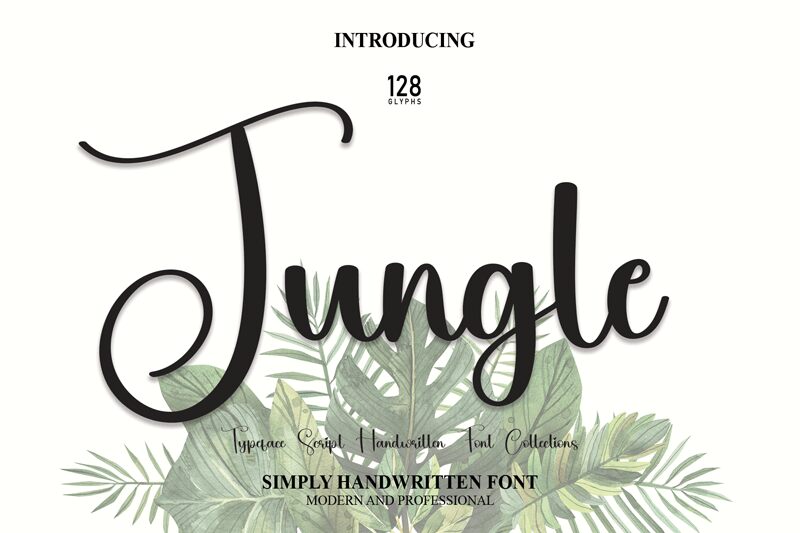
Jungle
Jungle, the mesmerizing calligraphy font by scratchones, effortlessly combines elegance with a touch of playfulness. Its semi-light weight allows for versatility in various projects. Perfectly suited for romantic wedding invitations, enchanting greeting cards, and captivating logo designs. This font will leave a lasting impression on social media graphics, blog headers, and branding materials. Let Jungle's delicate strokes transport your audience to a lush oasis of creativity and sophistication. Unleash your imagination with this unique typeface that brings an untamed charm to any project it graces.